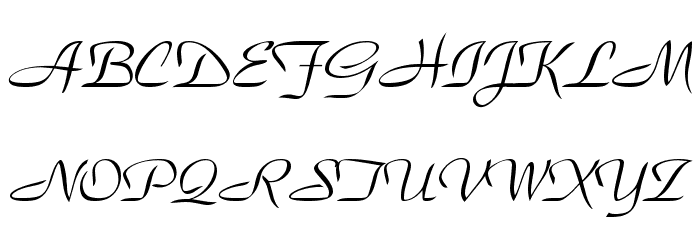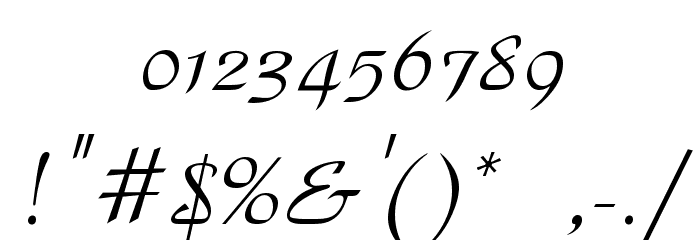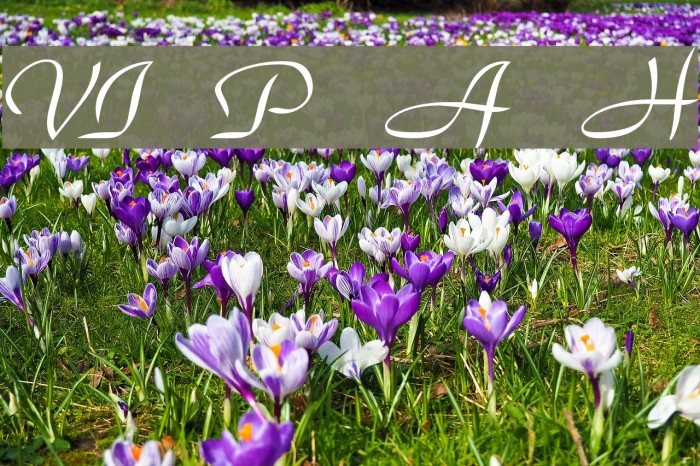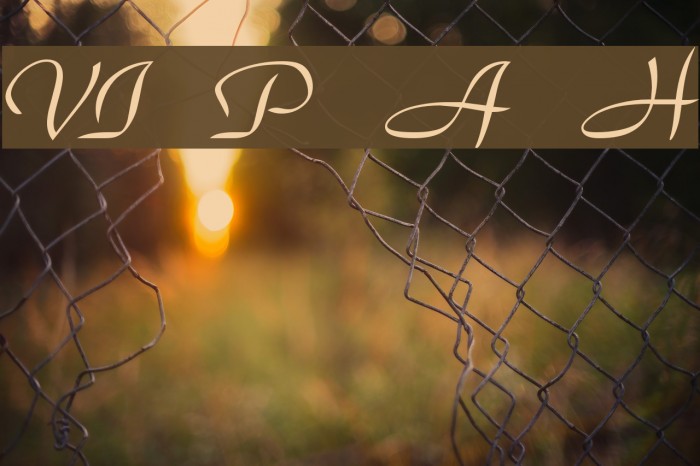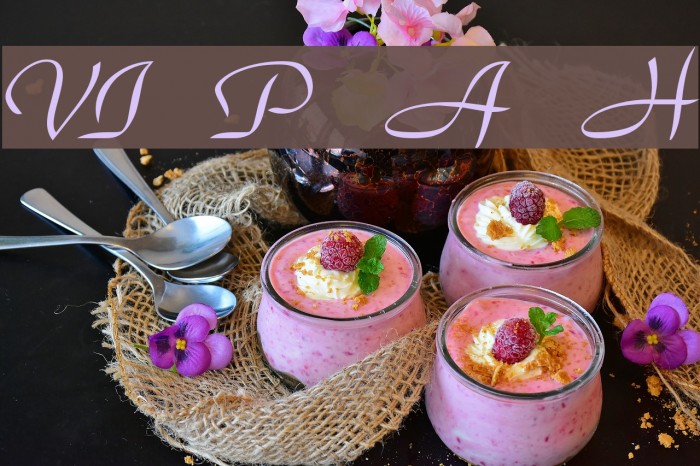
VI Phuong Anh Hoa Font
This elegant script font features flowing, cursive letterforms with a classic and sophisticated appearance. The uppercase letters are ornate, with sweeping curves and delicate flourishes, while the lowercase letters maintain a consistent style that complements the uppercase. The numerals are designed to match the overall aesthetic, with a graceful and refined look. Special characters are included, maintaining the same decorative style. The font's high contrast between thick and thin strokes adds to its elegance, making it suitable for formal and decorative uses.
An elegant script font with flowing, cursive letterforms and high contrast.
- Proposed Projects: Ideal for wedding invitations, elegant branding, formal event programs, and decorative signage.
- Overall Style: Classic
- Use Case: Logos, Invitations, Decorative Text